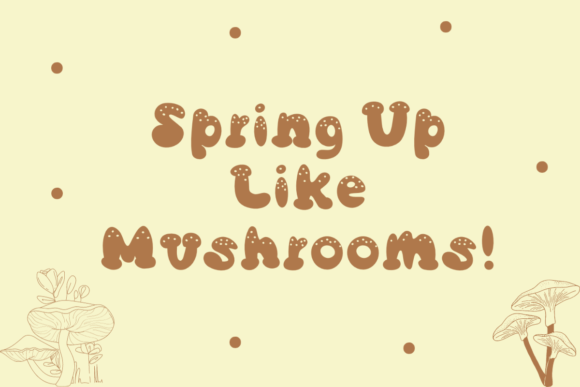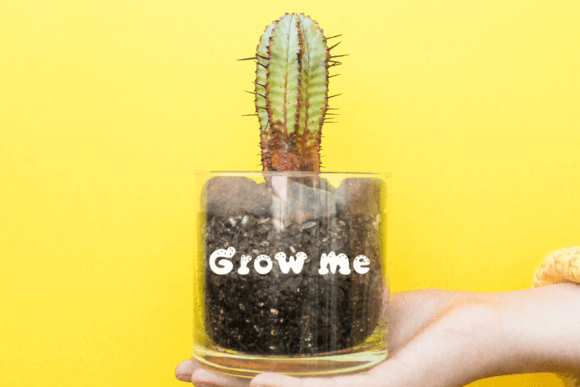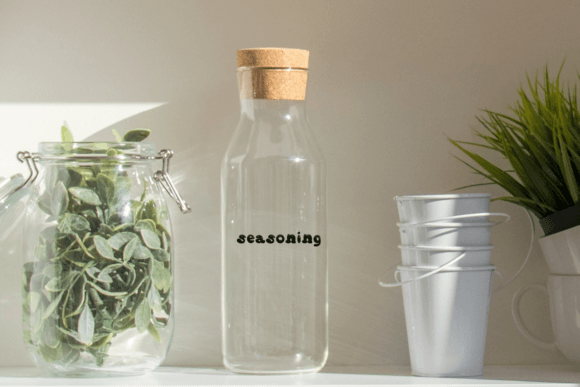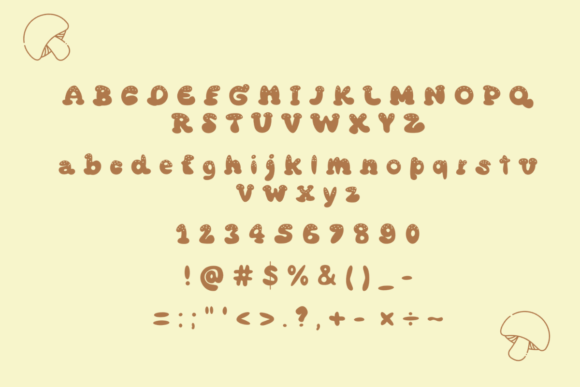
Introduction to Mushroom House Font
Mushroom House font is a decorative font with dot decoration that is perfect for projects related to Cute, Christmas, and Mushroom.
Use it on your card, flyers, banners, book titles, social media and so much more .
Key Features of Mushroom House Font
Why Choose Mushroom House Font?